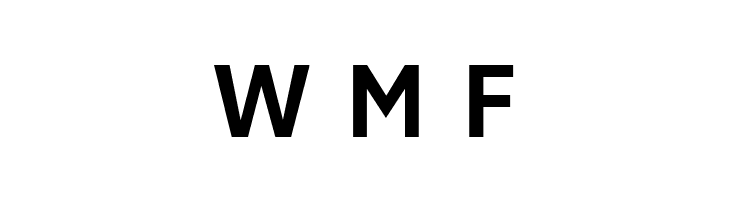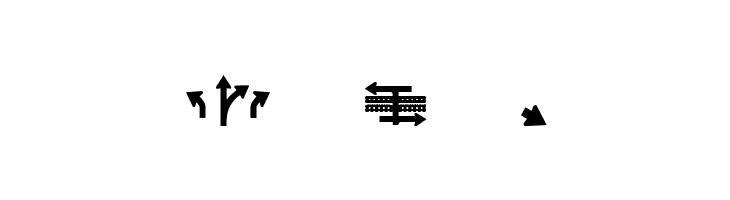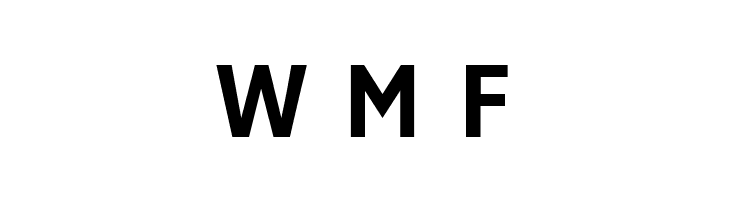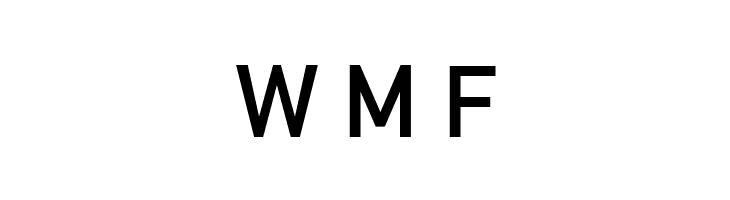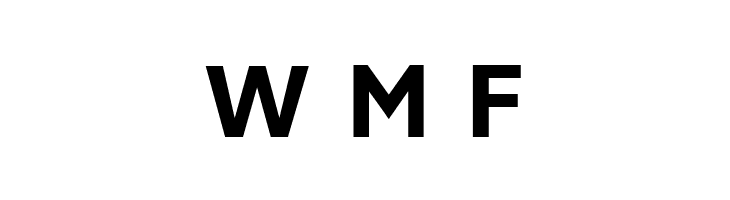
A modern, clean sans-serif font with high readability.
A modern sans-serif font with clean lines and excellent legibility.
Bold, geometric arrows for signage and wayfinding.
A set of bold, clear directional arrow symbols for road signage.
A bold, modern sans-serif font with excellent readability and uniform design.
A clean, geometric sans-serif font with excellent readability.
A bold, geometric typeface with strong lines and excellent readability.
A bold, modern sans-serif font with excellent legibility and a slightly condensed style.
A bold, condensed font with a modern, geometric style.
A modern, clean sans-serif font with uniform strokes and excellent readability.